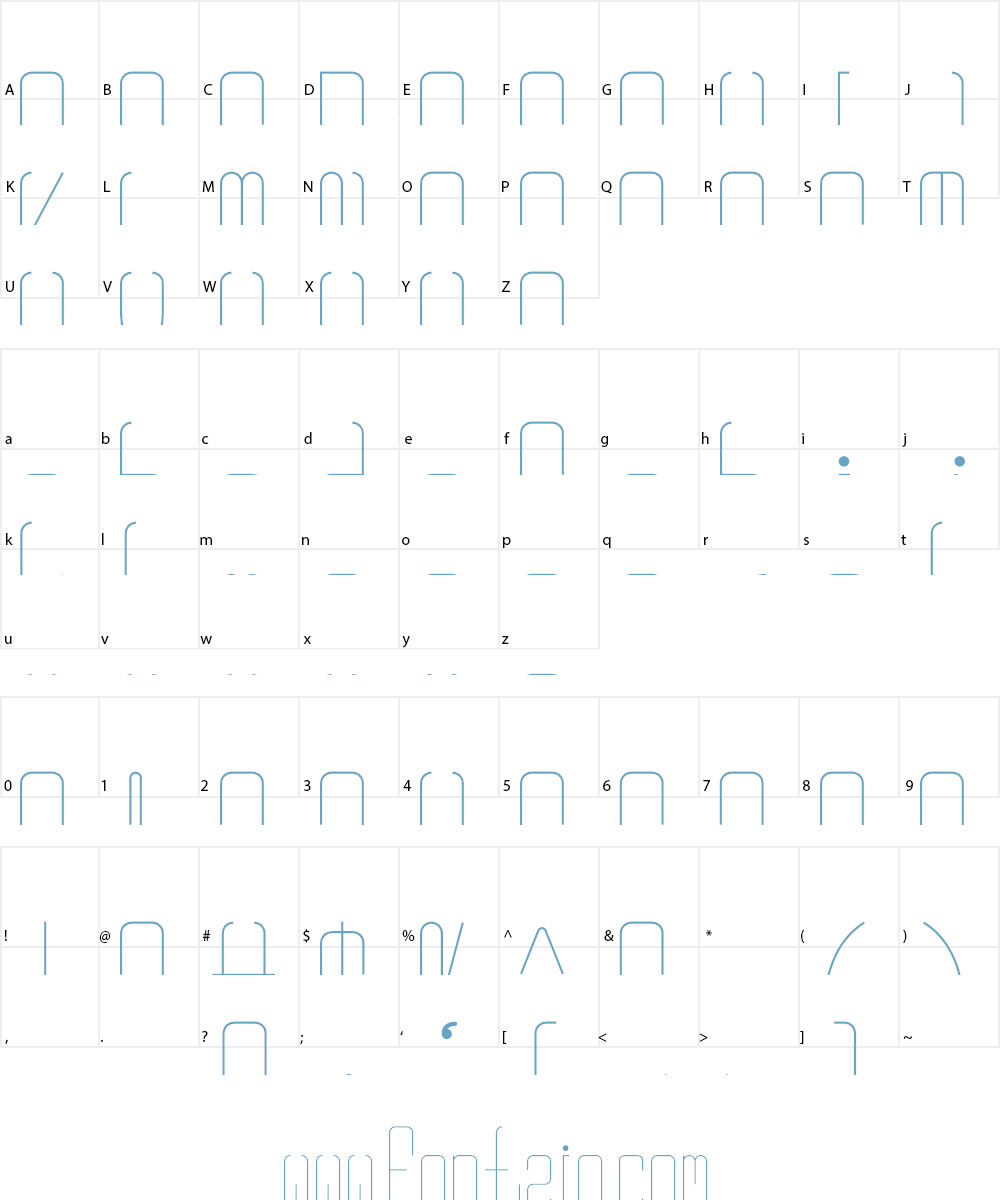
Rangy is an experimental free for commercial and personal use typeface designed for titles of fashion magazines and cosmetics products.
Inspired by paper clip.
Designed according the measurments of golden ratio.
Characteristics
Soft
Thin & slim